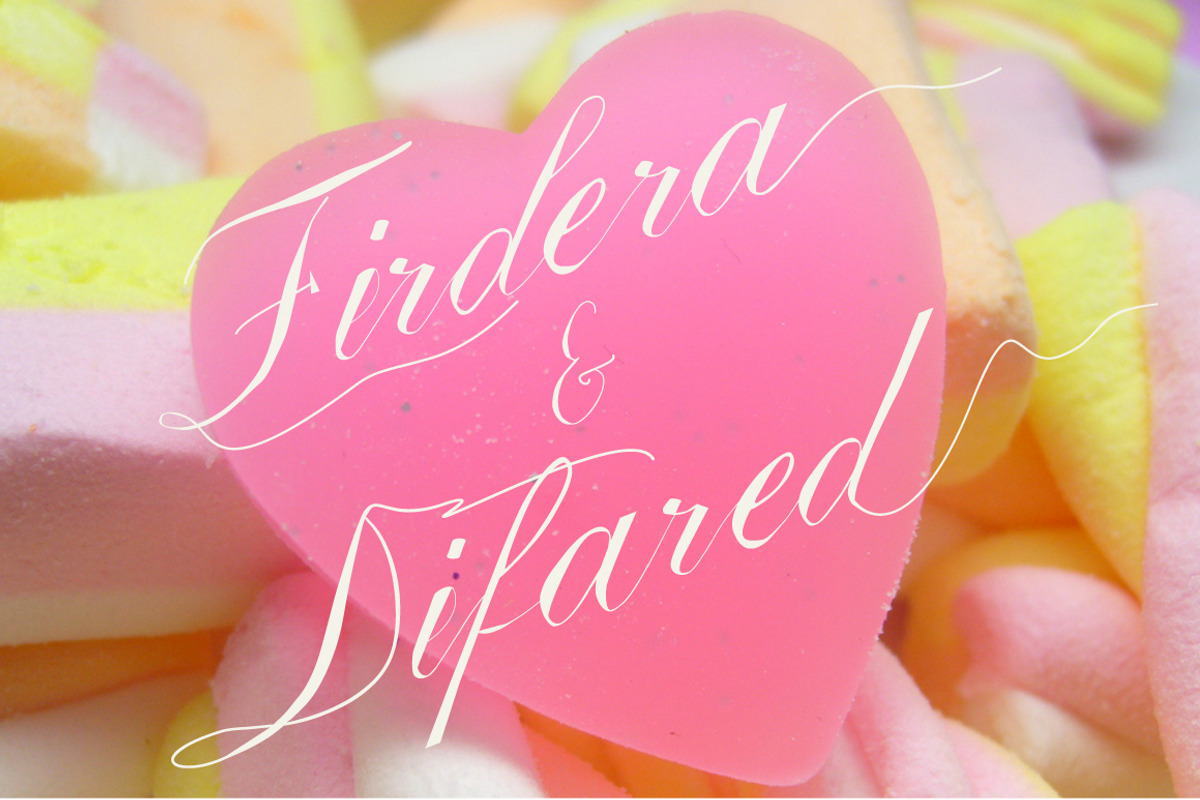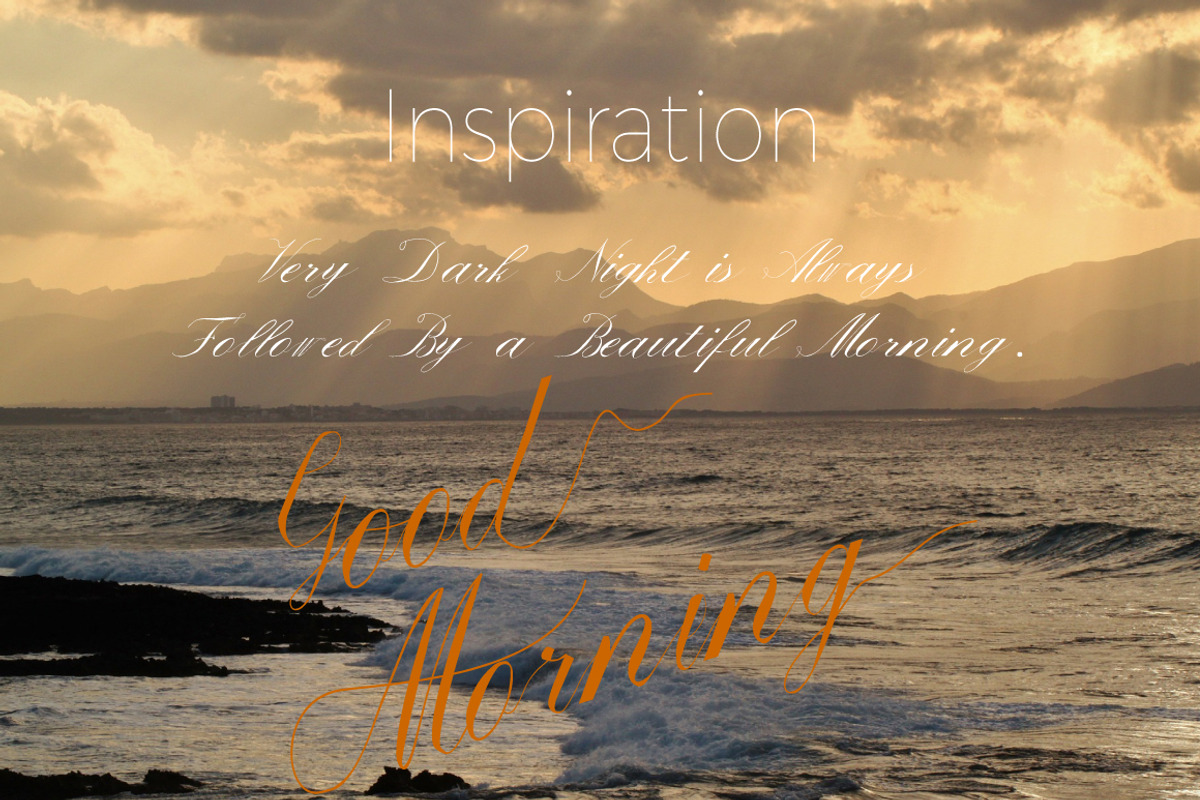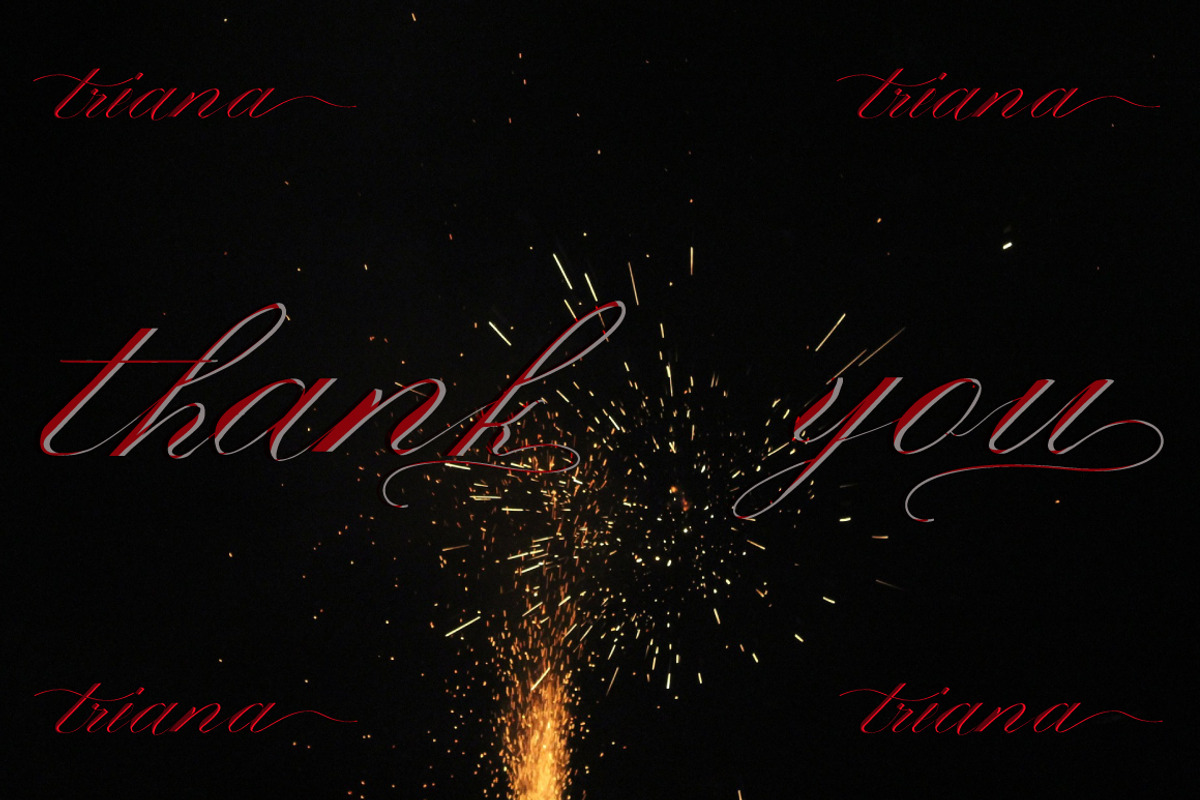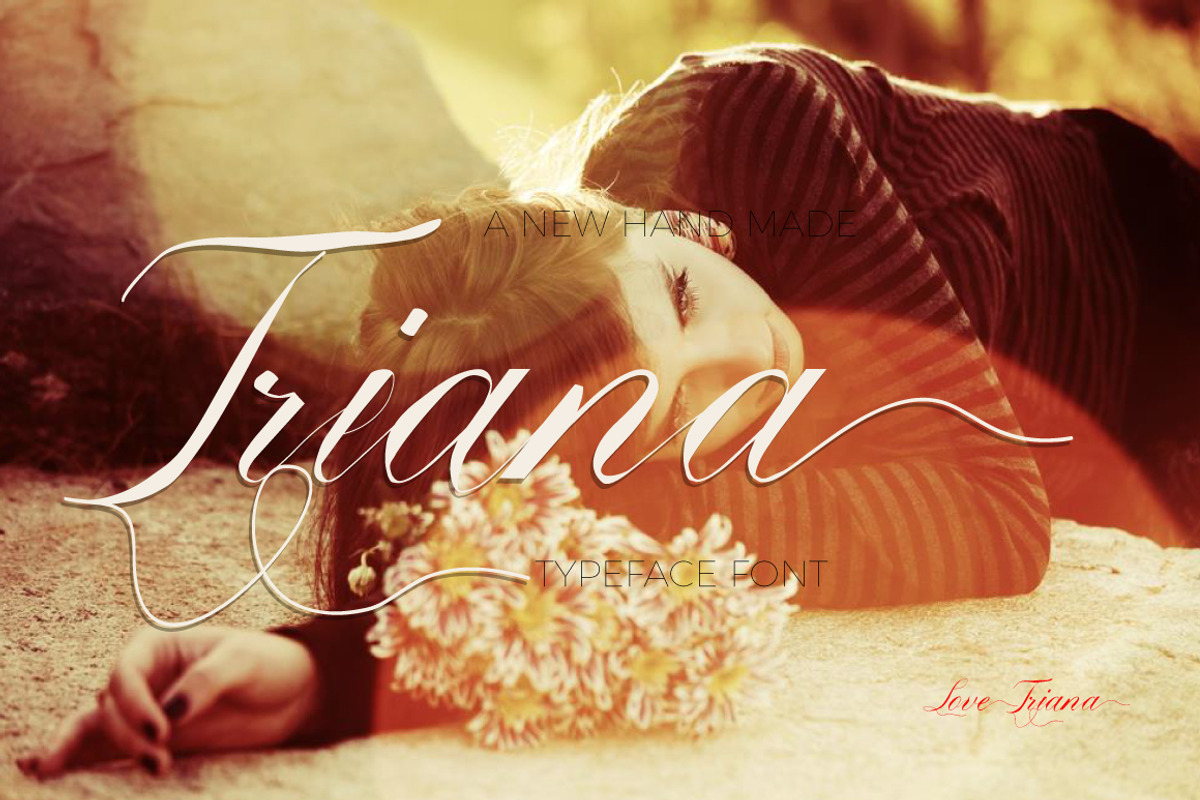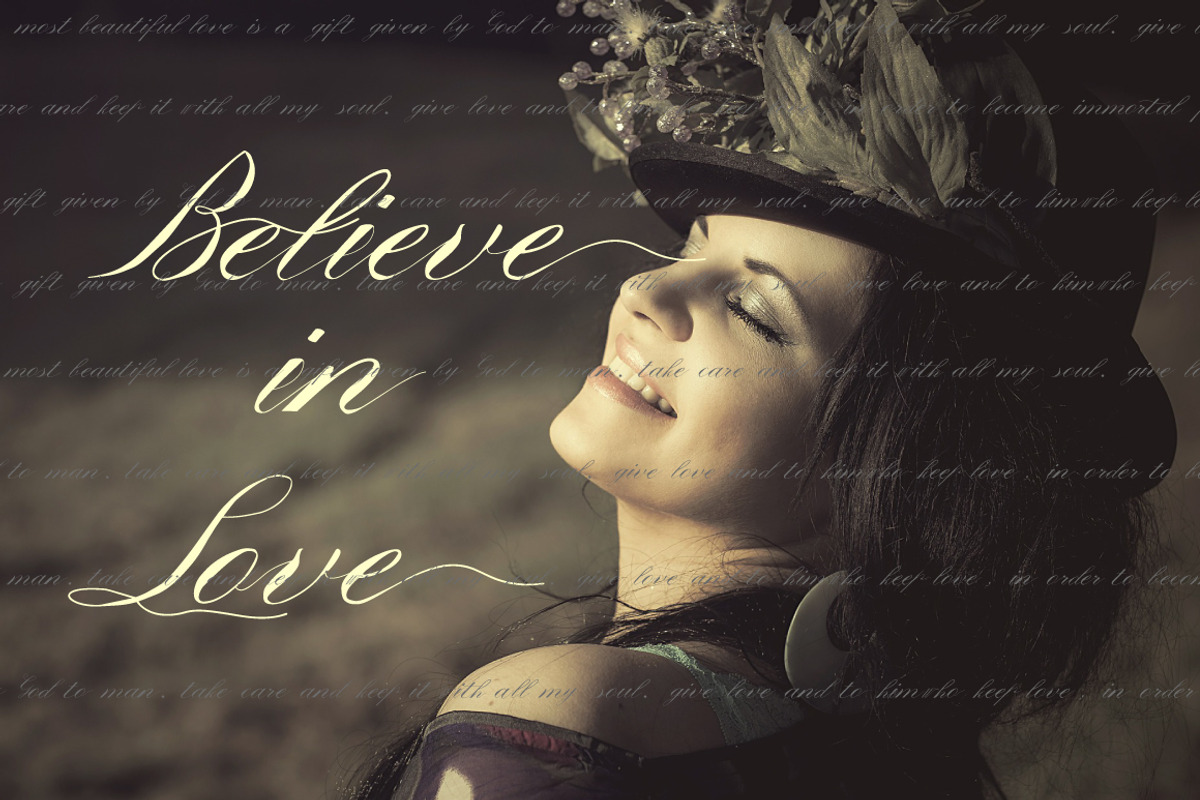
Triana Font
Triana Font by marone is a font selected for branding, posters, packaging, typography.
- Triana font comes with uppercase, lowercase character, punctuation, numbers, also equipped with alternative uppercase and lowerc
Why Triana Font is worth a look
Triana Font by marone fits naturally into Branding, posters, packaging, typography.